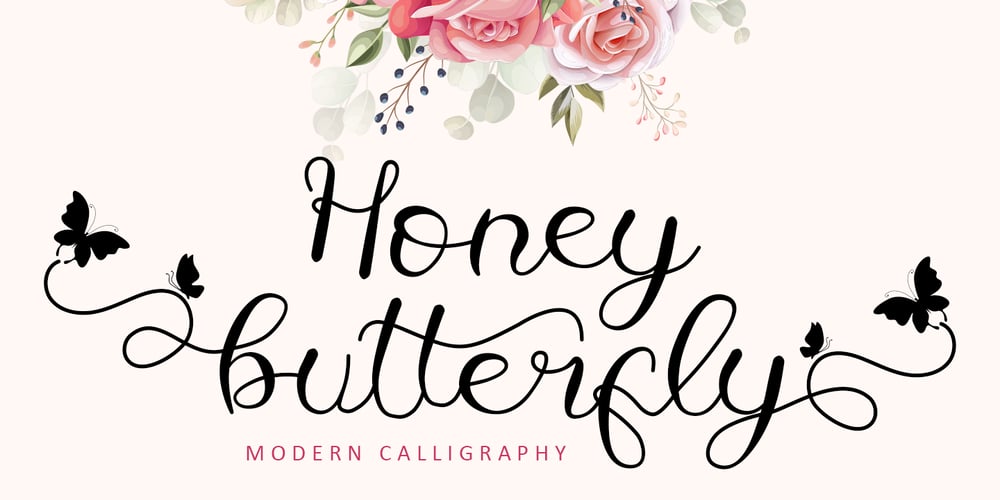
Honey Butterfly
Honey Butterfly font
Honey Butterfly Font Family was designed by Bayu Suwirya and published by Illushvara. Honey Butterfly contains 1 styles and family package options. Honey Butterfly is a beautiful handwritten font. It has a classy, elegant, and modern look which can be used for logos, branding, invitations, stationery, wedding designs, social media posts, and much more.This font is PUA encoded which means you can access all of the butterfly-themed glyphs and swashes with ease! It also features a wealth of special features including alternate glyphs and ligatures.